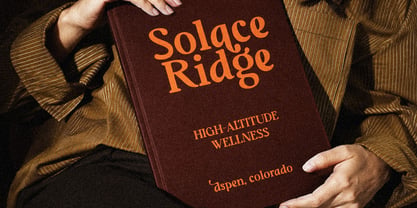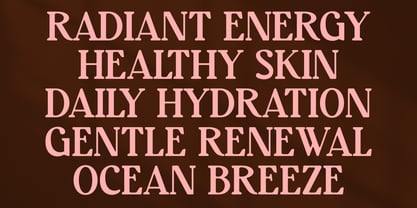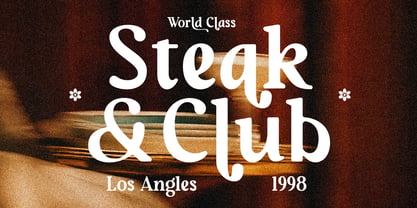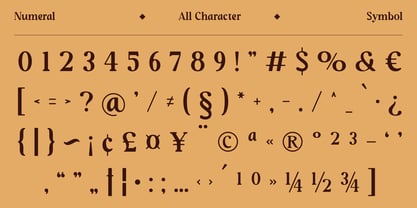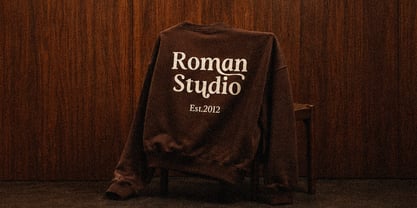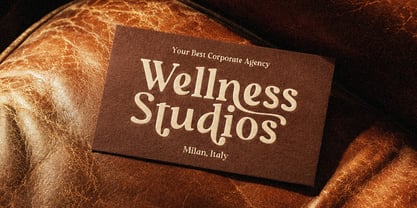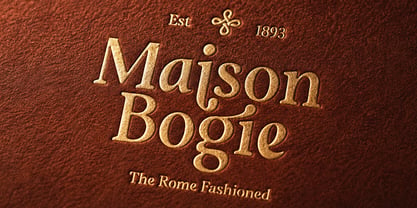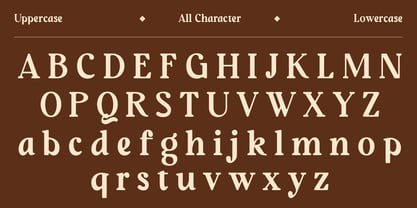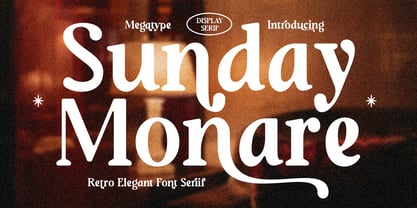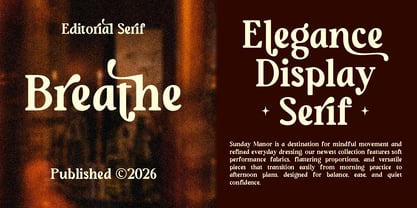
Sunday Monare
von Mega Type
Die Schriftfamilie Sunday Monare wurde von M Akmal entworfen und von Mega Type veröffentlicht. Sunday Monare enthält 2 Stile und Familienpaketoptionen. Mehr über diese Familie
Sunday Monare is a sophisticated display serif font that blends vintage charm with refined elegance. Its distinctive letterforms feature soft curves, decorative terminals, and graceful proportions that create a timeless aesthetic reminiscent of classic editorial design and heritage typography. Inspired by retro elegance and old-world craftsmanship, Sunday Monare delivers both personality and readability in large-format applications.
Sunday Monare is ideal for luxury branding, boutique logos, fashion labels, beauty products, wedding stationery, magazine covers, book titles, restaurant branding, café menus, packaging design, social media graphics, event invitations, premium advertising, home décor brands, and vintage-inspired creative projects. Its decorative yet elegant style works best for headlines, display text, and visual identities that require a sophisticated and distinctive appearance.
Designer: M Akmal
Foundry: Mega Type